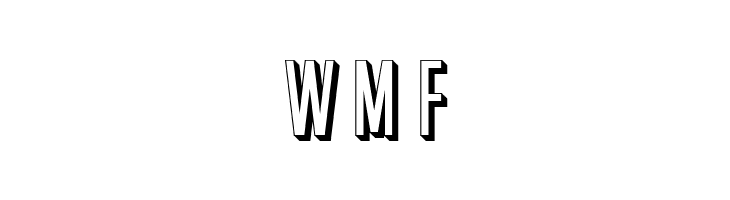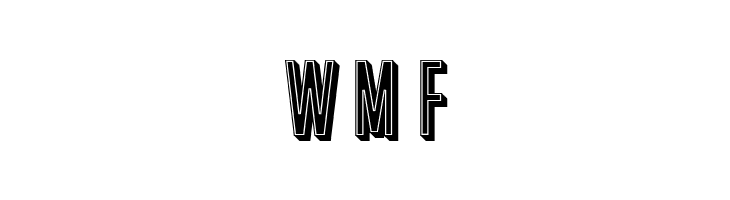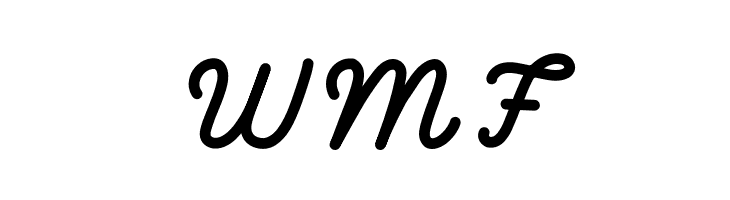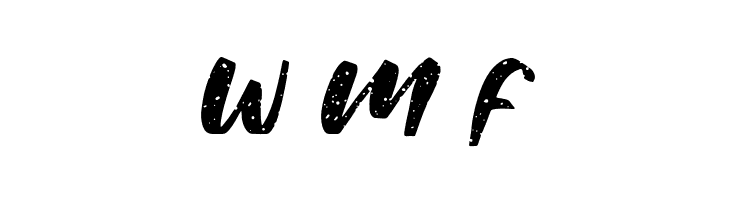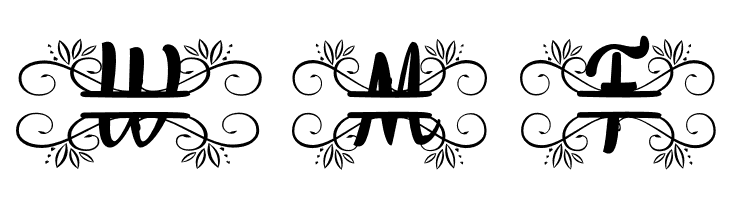
A bold, brush-style font with a distressed texture and dynamic, energetic appearance.
A sophisticated script font with flowing, cursive characters and elegant swashes.
A bold, cursive script font with a lively and connected style.
A bold, rounded font with a playful, hand-drawn style.
An ornate script font with intricate floral embellishments.
Ornate decorative swashes and flourishes.
A bold, playful handwritten font with smooth, rounded characters.
A playful, handwritten-style font with tall, narrow letters and consistent stroke width.
A bold, 3D font with a shadow effect and modern aesthetic.
A bold, outlined decorative font with high contrast and a modern, dynamic style.